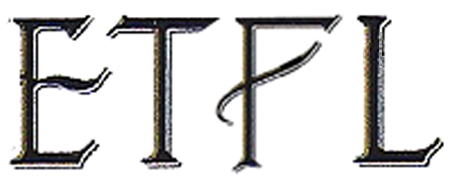
font id request
Sorry Doug, I got nothing close enough. It does have some similarities such as the arms of the E & F to an early Dan Solo font called ANGLO but it's not tooled nor have the same serifs and terminals.